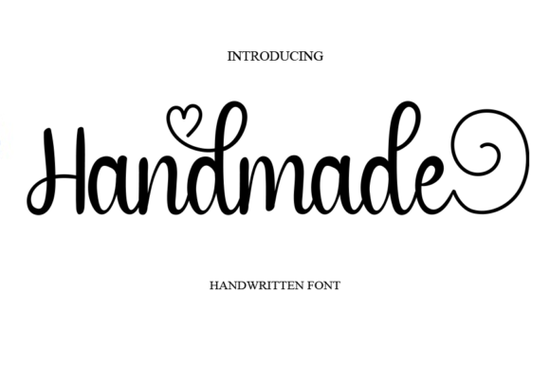
Handmade Font is a beautifully crafted script font that brings a personal, artisanal touch to any design project. Whether you're creating greeting cards, branding materials, or social media graphics, this font adds a unique flair that stands out. Its elegant swashes and fluid lines make it ideal for both modern and classic styles. The PUA encoding ensures that all the special characters and ligatures are easily accessible, making it a versatile choice for designers and creators of all skill levels.
If you're looking for fonts that combine style with functionality, Handmade Font is a great addition to your collection. It fits well within the {category} category, offering a balance between creativity and usability. For those who appreciate the charm of handwritten typography, this font delivers a warm and authentic feel that digital fonts often lack.
What Makes Handmade Font Stand Out?
One of the key features of Handmade Font is its ability to add a human touch to digital designs. Unlike many standard fonts, it mimics the natural variation of handwriting, giving your work a more personal and artistic look. This makes it especially useful for projects that require a handmade aesthetic, such as wedding invitations, boutique branding, or custom illustrations.
The font's versatility allows it to work well in both large and small sizes, making it suitable for headings, body text, and even logos. Its clean structure ensures readability without sacrificing style. Whether you're designing for print or digital use, Handmade Font adapts seamlessly to different formats and applications.
How to Use Handmade Font in Your Projects
For those new to script fonts, Handmade Font offers a gentle learning curve. You don’t need advanced design skills to make it look great. Simply choose the right size and spacing, and let the font do the rest. It pairs well with other fonts, allowing you to create balanced and visually appealing layouts.
Best Practices for Working With Script Fonts
When working with script fonts like Handmade Font, it’s important to consider legibility and contrast. Avoid using too many decorative elements in the same design, as this can make the text harder to read. Instead, focus on one or two key areas where the font can shine, such as a headline or logo.
Also, pay attention to the spacing and alignment. Script fonts often have irregular letter spacing, so adjusting the tracking or kerning can help improve the overall look. Testing the font in different sizes and contexts will help you determine the best way to use it for your specific project.
Whether you're a designer, crafter, or small business owner, Handmade Font offers a fresh and stylish way to express your creativity. Its ease of use, combined with its unique visual appeal, makes it a valuable tool for anyone looking to add a personal touch to their work.
Before finalizing your design, take a moment to review how the font looks in different settings. Make sure it aligns with your overall vision and meets the needs of your audience. With a little experimentation, you’ll find the perfect way to incorporate Handmade Font into your next project.